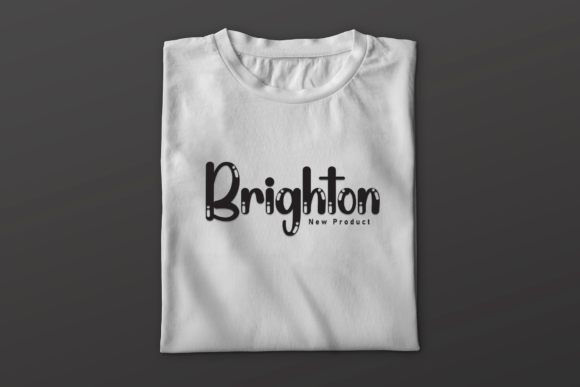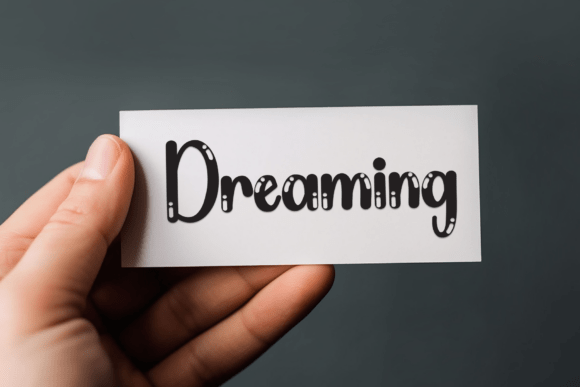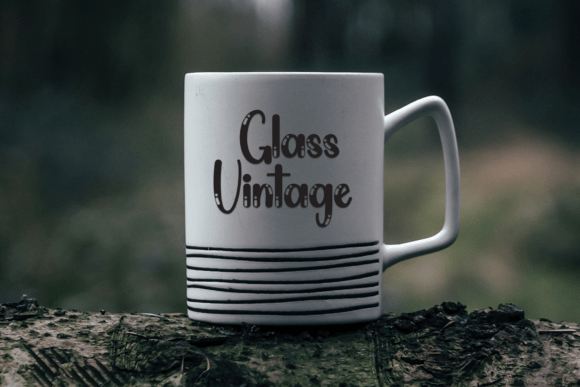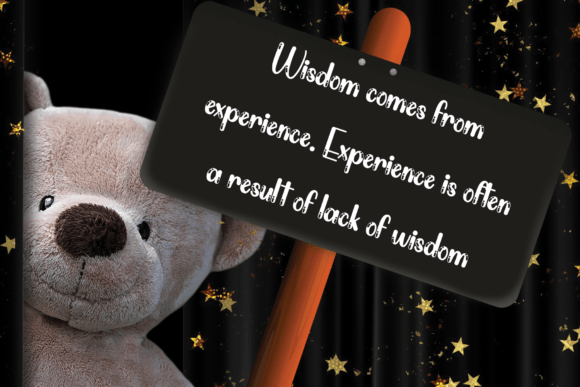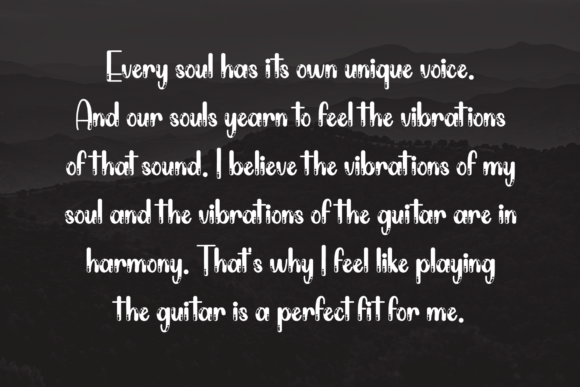
Introducing the Handmade Font: A Whimsical Addition to Your Design Journey
Are you tired of using the same old fonts in your design projects? Do you want to add a touch of personality and whimsy to your creations? Look no further than the Handmade Font, a charming and warm handwritten display font that’s sure to bring a smile to your audience’s faces. In this article, we’ll explore the unique features of the Handmade Font, its uses, and benefits, and why it’s a must-have for designers and crafters.
The Charm of Handmade Font
The Handmade Font is a one-of-a-kind, whimsical font that’s designed to evoke a sense of warmth and friendliness. Its adorable allure is perfect for adding a sweet and playful touch to your design projects, whether you’re creating wedding invitations, greeting cards, or any other type of design that requires a personal touch. With its unique and quirky style, this font is sure to make your designs stand out from the crowd.
Uses of Handmade Font
The Handmade Font is incredibly versatile and can be used in a variety of design projects, including:
- Wedding Invitations: Add a touch of romance and whimsy to your wedding invitations with the Handmade Font. Its elegant and playful style is perfect for couples who want to make their special day truly unforgettable.
- Greeting Cards: Create heart-touching cards for special occasions like birthdays, anniversaries, and holidays with the Handmade Font. Its friendly and approachable style is sure to make your cards feel more personal and meaningful.
- Design Projects: Whether you’re designing a logo, brochure, or website, the Handmade Font can add a playful and creative touch to your projects. Its unique style is perfect for brands that want to stand out and make a statement.
Benefits of Using Handmade Font
So why choose the Handmade Font for your design projects? Here are just a few benefits:
- Unique Style: The Handmade Font has a one-of-a-kind style that’s sure to make your designs stand out from the crowd.
- Emotional Connection: The font’s whimsical and playful style is designed to evoke emotions and create a connection with your audience.
- Versatility: The Handmade Font can be used in a variety of design projects, from wedding invitations to design projects.
Tips for Using Handmade Font
Here are a few tips for using the Handmade Font in your design projects:
- Pair with Other Fonts: The Handmade Font can be paired with other fonts to create a unique and interesting contrast.
- Experiment with Colors: The font looks great in a variety of colors, so don’t be afraid to experiment and find the perfect hue for your design.
- Use in Combination with Images: The Handmade Font can be used in combination with images to create a visually appealing design.
In conclusion, the Handmade Font is a whimsical and charming handwritten display font that’s perfect for designers and crafters who want to add a touch of personality to their design projects. Its unique style, versatility, and ease of use make it a must-have for anyone looking to create memorable and engaging designs. Whether you’re creating wedding invitations, greeting cards, or design projects, the Handmade Font is sure to bring a smile to your audience’s faces.